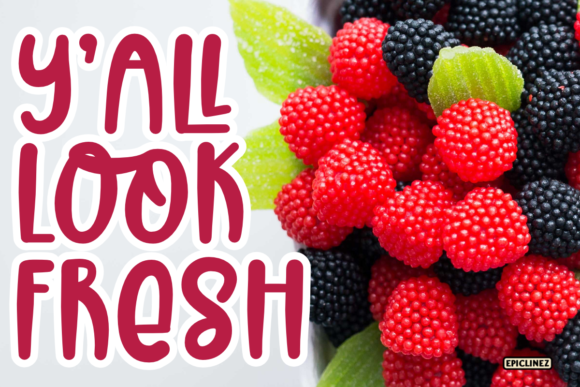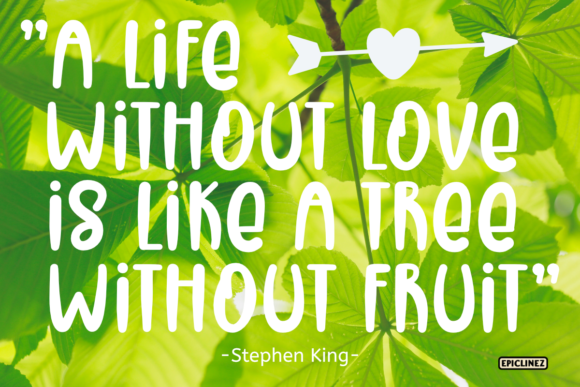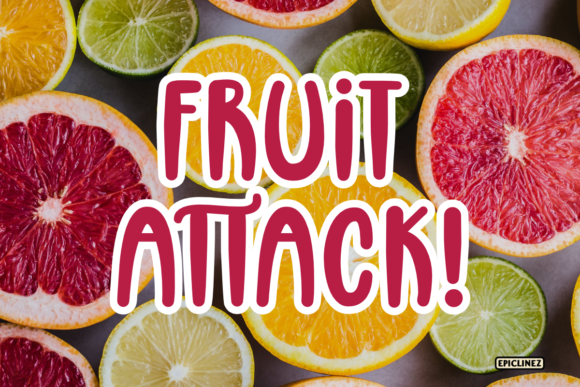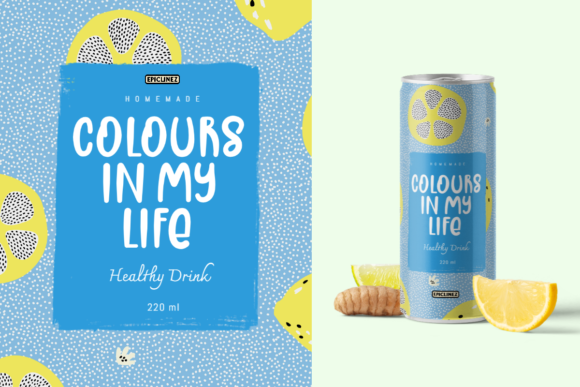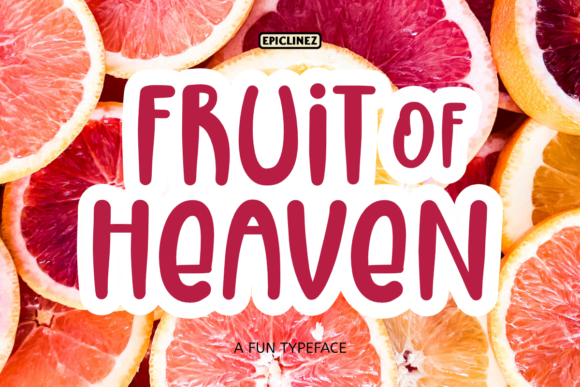
Fruit of Heaven Font: Elevate Your Crafting Projects with a Cute and Fun Display Font
Are you a designer or crafter looking for a unique and playful font to add a touch of personality to your projects? Look no further than the Fruit of Heaven font! This all-caps display font is perfect for anyone who wants to add a bit of whimsy and fun to their crafting projects. In this article, we’ll take a closer look at the Fruit of Heaven font, its features, and how you can use it to take your crafting projects to the next level.
What is Fruit of Heaven Font?
Fruit of Heaven is a cute and fun display font that is sure to capture the attention of your audience. With its playful and carefree vibe, this font is perfect for crafters, designers, and anyone who loves to add a personal touch to their projects. The font features a unique and quirky design that is sure to make your projects stand out from the crowd.
Key Features of Fruit of Heaven Font
So, what makes Fruit of Heaven font so special? Here are some of its key features:
- All Caps Font: Fruit of Heaven is an all-caps font, which means it’s perfect for headlines, titles, and any other text that needs to make a statement.
- Cute and Fun Design: The font features a playful and whimsical design that’s sure to add a touch of personality to your projects.
- Display Font: Fruit of Heaven is a display font, which means it’s designed to be used at larger sizes, making it perfect for titles, headings, and other display text.
- Easy to Read: Despite its playful design, Fruit of Heaven is easy to read, even at smaller sizes.
How to Use Fruit of Heaven Font in Your Crafting Projects
So, how can you use Fruit of Heaven font in your crafting projects? Here are a few ideas to get you started:
- Crafting Projects: Use Fruit of Heaven font to add a personal touch to your crafting projects, such as scrapbooking, card making, and other paper crafts.
- Sign Making: Use the font to create eye-catching signs for your business, event, or personal project.
- Social Media Graphics: Use Fruit of Heaven font to create engaging social media graphics that are sure to capture the attention of your audience.
- Party Decorations: Use the font to create fun and playful party decorations, such as banners, garlands, and other DIY decor.
Why Choose Fruit of Heaven Font?
So, why should you choose Fruit of Heaven font for your crafting projects? Here are a few reasons:
- Unique Design: Fruit of Heaven font features a unique and quirky design that’s sure to make your projects stand out from the crowd.
- Versatile: Fruit of Heaven font can be used for a wide range of projects, from crafting and scrapbooking to sign making and social media graphics.
In conclusion, Fruit of Heaven font is a cute and fun display font that’s perfect for crafters, designers, and anyone who loves to add a personal touch to their projects. With its playful and carefree vibe, this font is sure to capture the attention of your audience and elevate your crafting projects to the next level. So why not give it a try and see the difference it can make in your projects?
Whether you’re a seasoned designer or a crafter just starting out, Fruit of Heaven font is a great addition to your font collection. So go ahead, get creative, and have fun with Fruit of Heaven font!